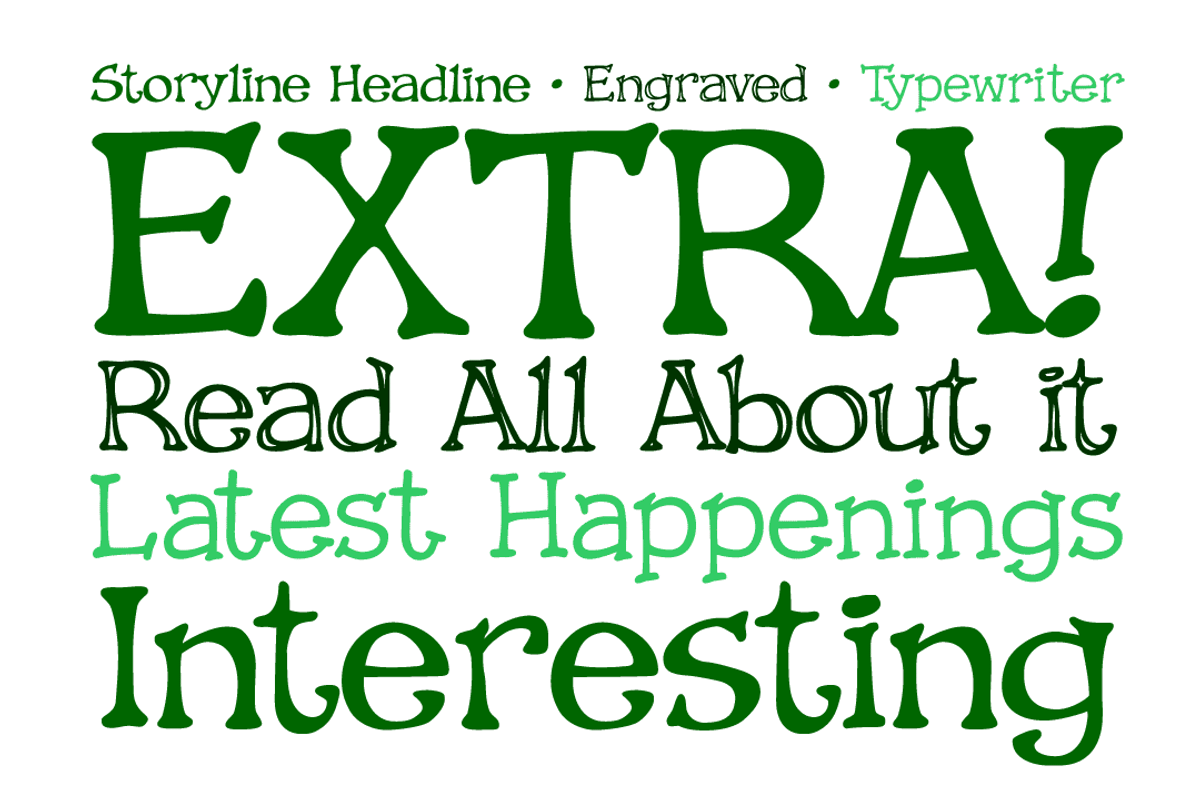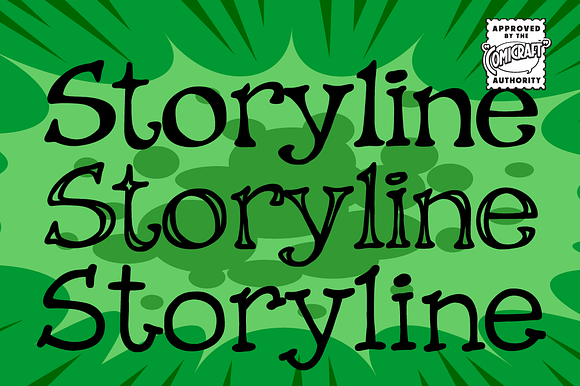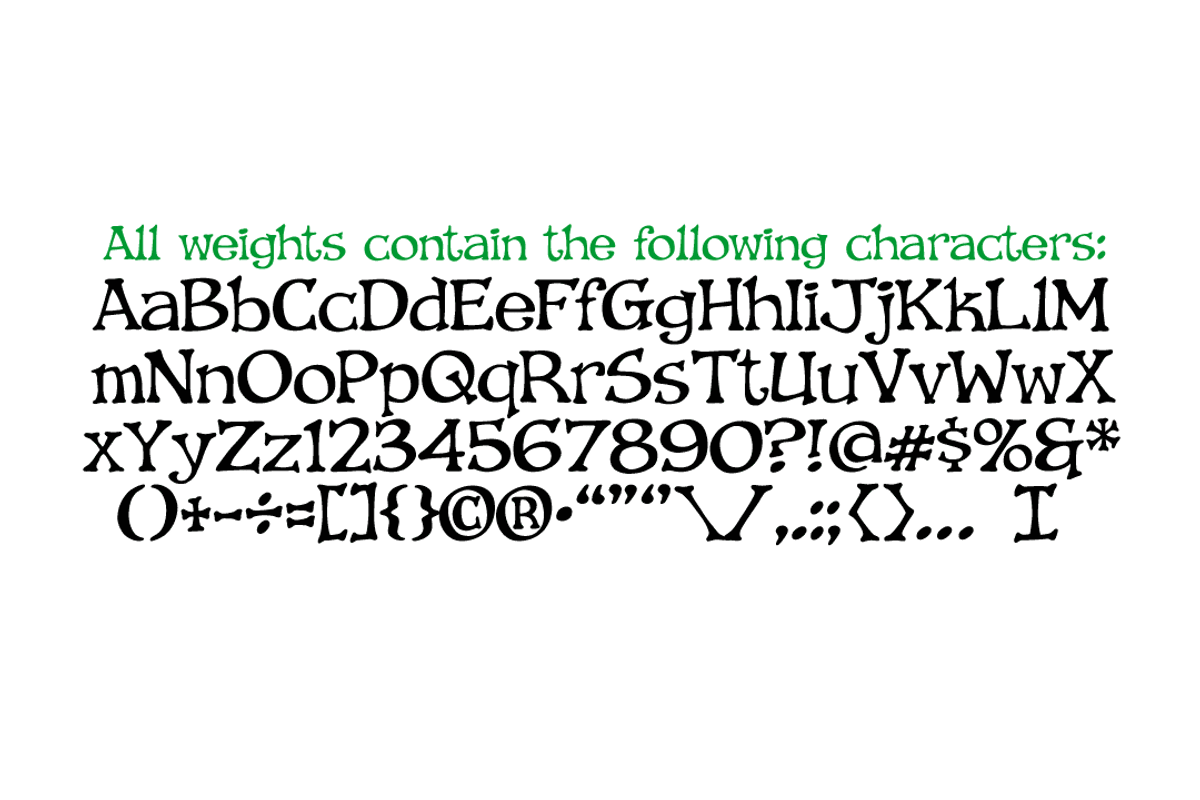
Storyline
It starts slowly, gently drawing you in... you're introduced to a number of strangely interesting and compelling characters. The plot seems at first to be satisfyingly predictable, then -- suddenly -- the narrative takes a completely unexpected turn! The protagonist is thrown into a series of devastating and alarming twists and turns! The antagonist triumphs -- evil trounces good, mass hysteria seizes the city streets! Our Hero is separated from his One True Love, and it seems that she has fallen for The Villain of the Piece! Will Good Prevail? Will Evil Perish? Will Love Conquer All?!? I don't know yet -- that's as far as I've got. Don't worry, it has a Great Ending.
- you're introduced to a number of strangely interesting and compelling characters.
Why Storyline is worth a look
Storyline by Comicraft Fonts fits naturally into Branding, posters, packaging, typography.